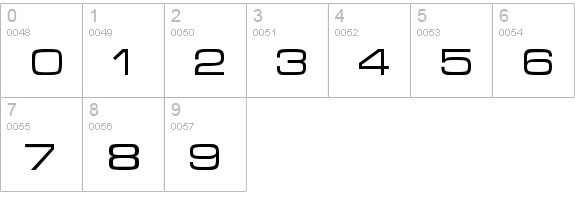
MicrogrammaEF-MediumExtend is a modern and sleek sans-serif font that exudes a sense of sophistication and professionalism. With its extended letterforms and clean lines, this font is perfect for creating bold and impactful designs. The versatile nature of MicrogrammaEF-MediumExtend makes it suitable for a wide range of projects, from branding to editorial design. The best part about MicrogrammaEF-MediumExtend is that it is available for free download at FontsMarket.com. This means that you can easily access this high-quality font without any cost, making it a valuable addition to your font library. Whether you're a designer looking for a stylish typeface or a business owner in need of a modern font for your marketing materials, MicrogrammaEF-MediumExtend has got you covered. Download it today and elevate your designs with this sleek and contemporary font.